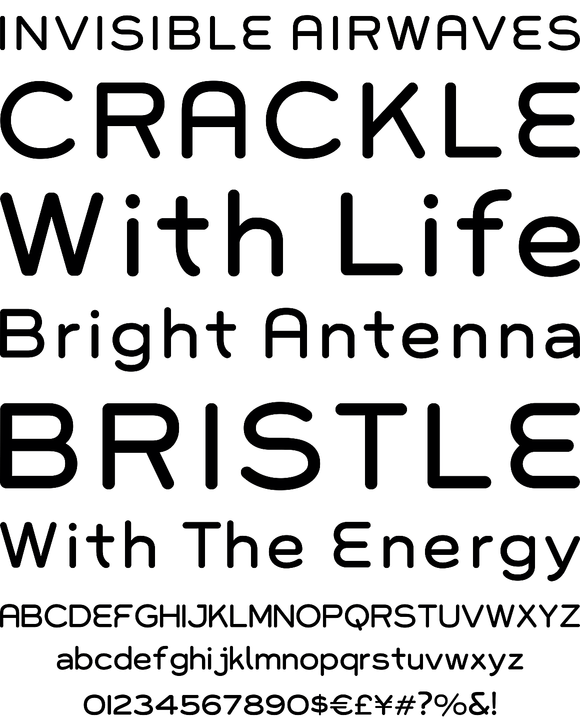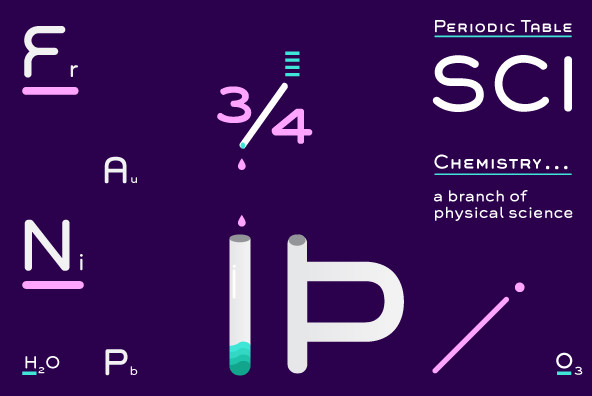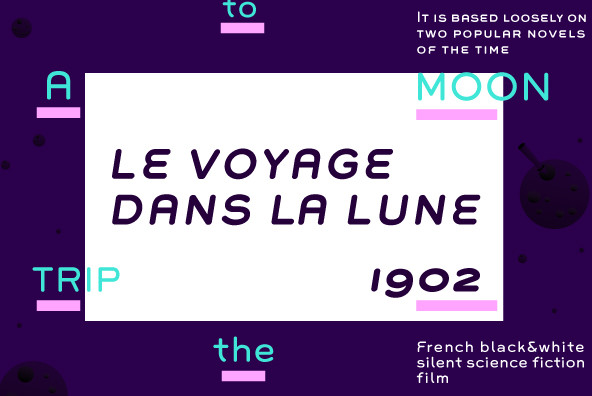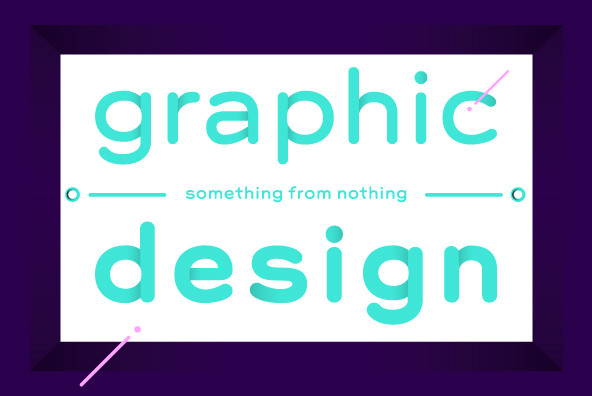
Foundry: Sudtipos
The object of Grover was to join two distinctive typeface designs: the basic European gothic of the late nineteenth century and the 'rounded' style found in 1960s America. The result is a clear, friendly face with subtle yet unforgettable features. Named after Grover Washington, Jr., the jazz saxophone player, Grover is geometrically constructed and yet very human in appearance. Sans and slab serif variations, true italic weights, as well as small caps afford Grover versatility and unique display characteristics.